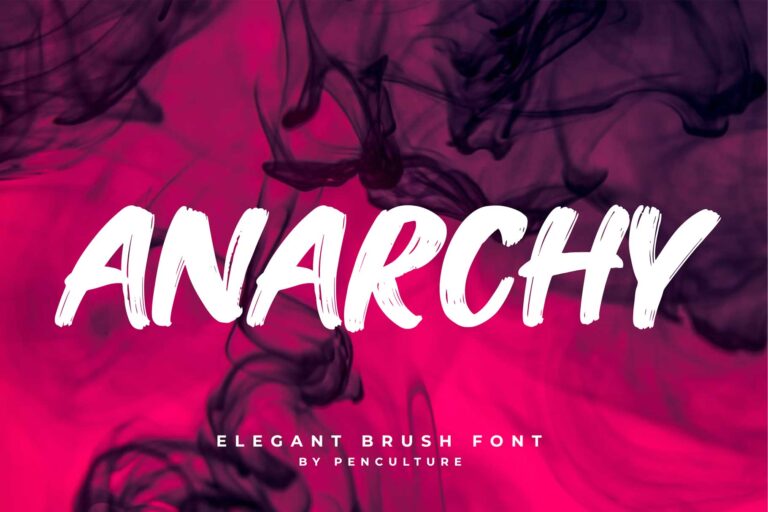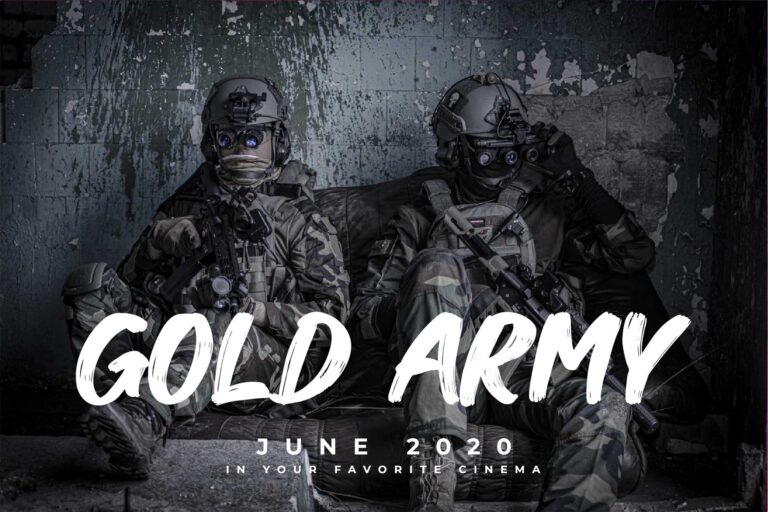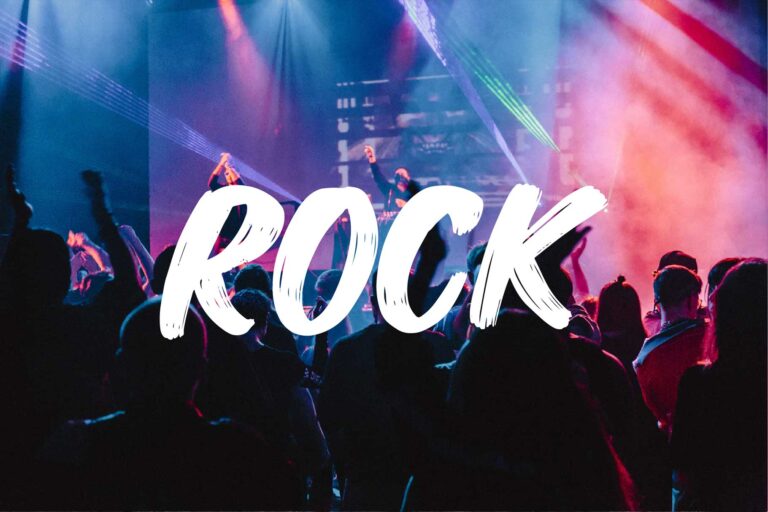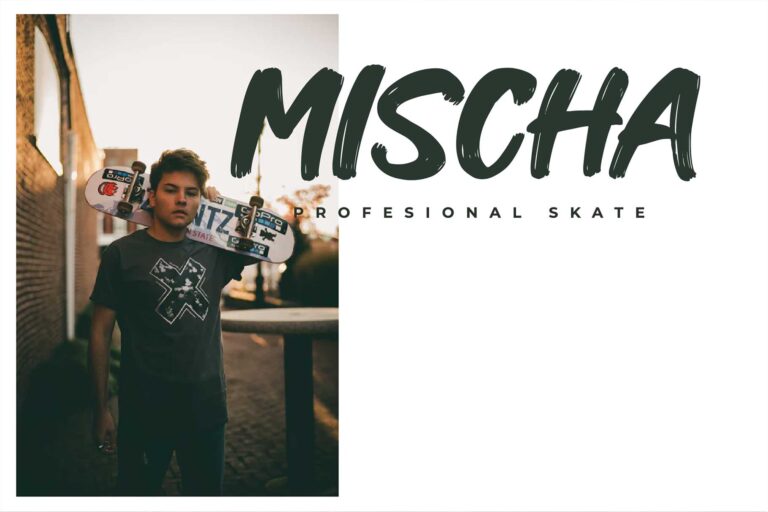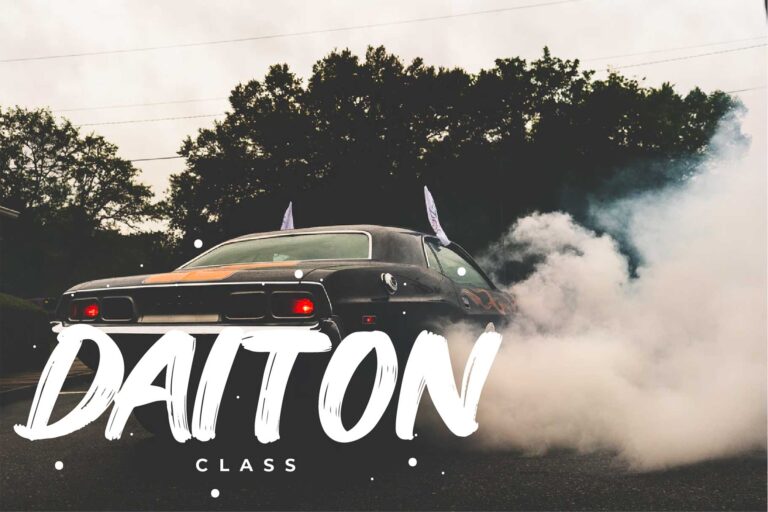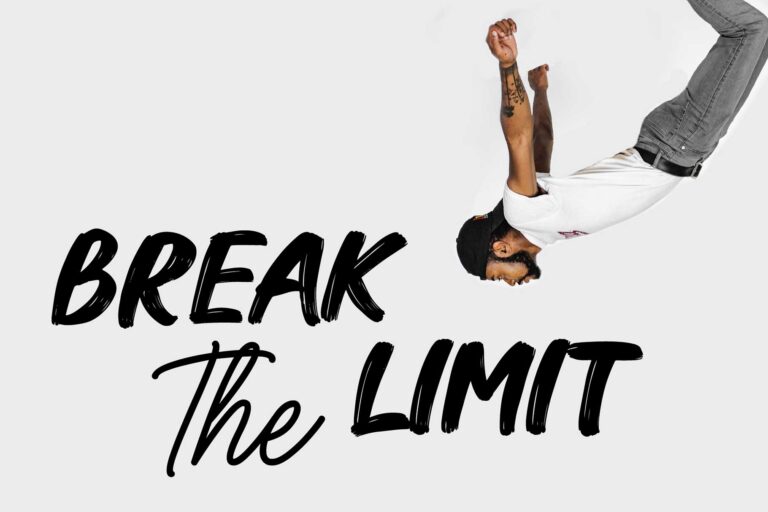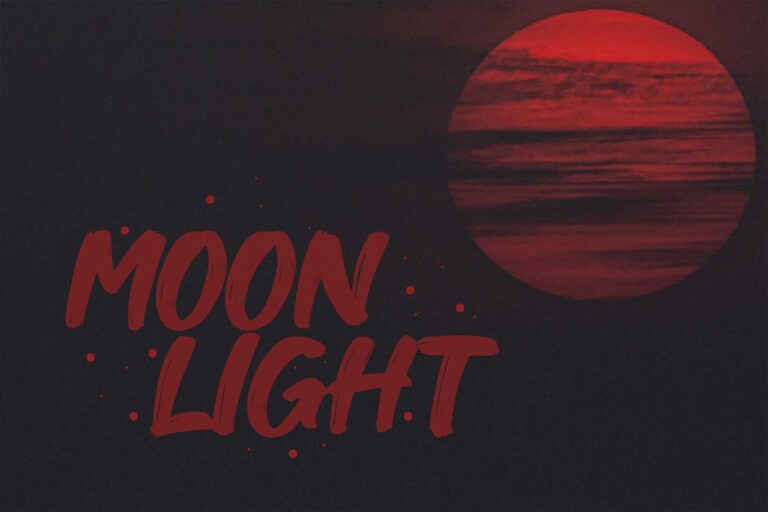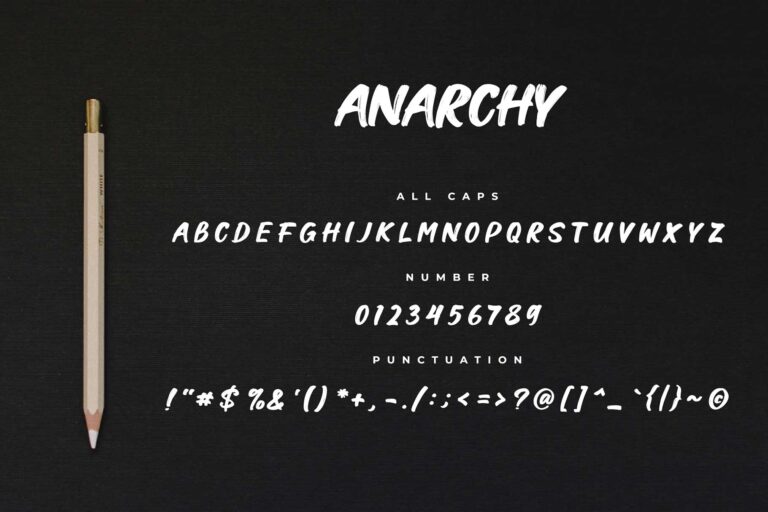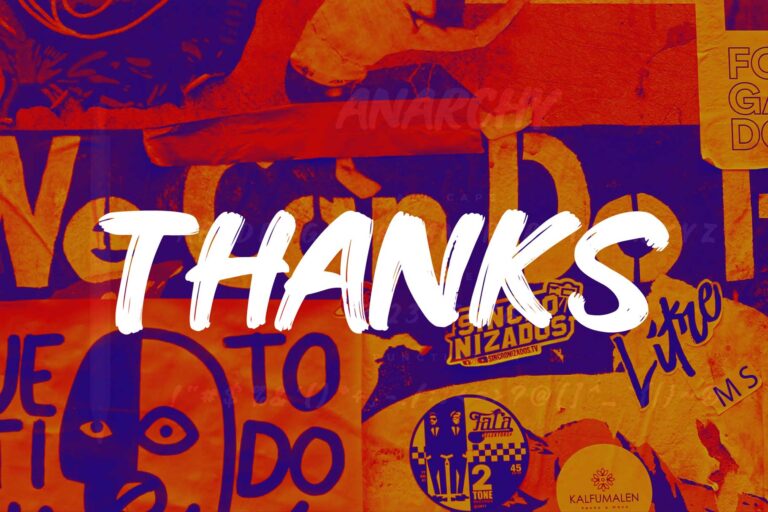
- Anarchy Brush Font
Anarchy looks bold, yet sophisticated and features chunky and extended characters that will look particularly adept when used in logos, branding, packaging design, and much more. This masterfully designed brush script is a true must-have.